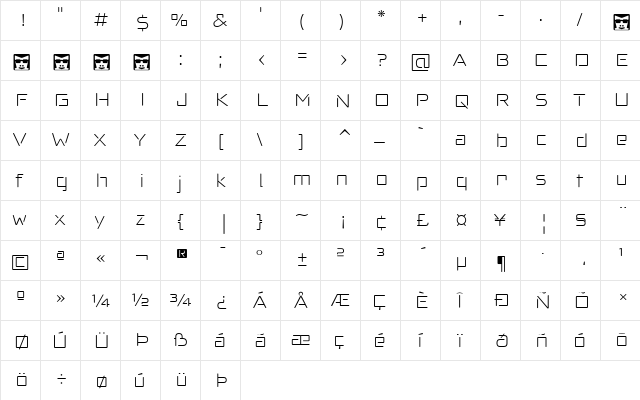
Anoxic Light Regular
| Foundry | deFharo |
| Designer | Fernando Haro |
Design Context for Anoxic Light Typeface
Anoxic Light is a composed and adaptable typeface that performs quietly and consistently across a wide range of design contexts. The delicate stroke weight brings airiness and refinement to layouts.